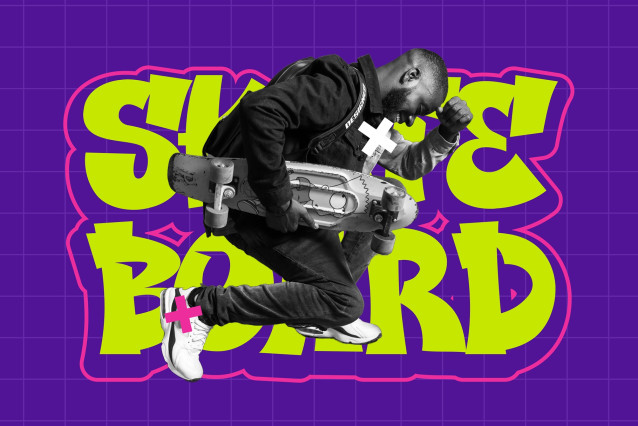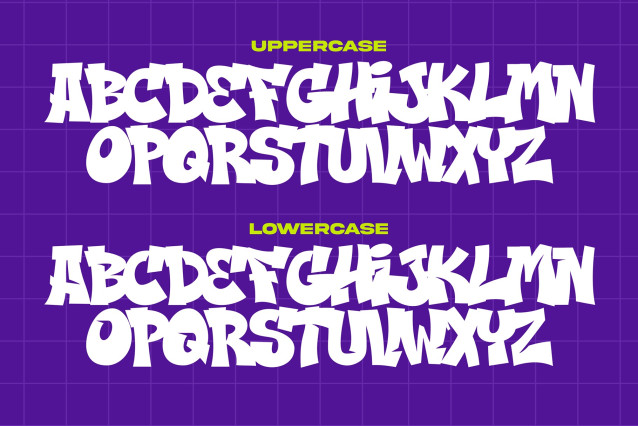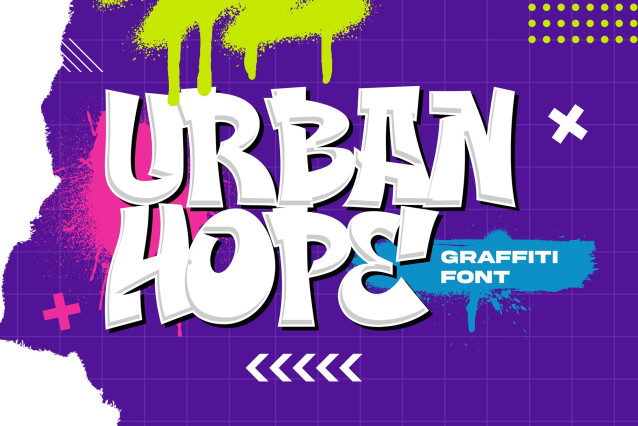
Urban Hope Font
Urban Hope Font is a dynamic urban graffiti font crafted to bring bold character and authentic street vibes to your work. With its raw strokes, expressive curves, and a mix of uppercase and lowercase letters, this typeface captures the essence of street culture—rebellious, loud, and undeniably cool.
Perfectly suited for album covers, graffiti-style posters, branding projects, and digital artwork, Urban Hope offers a versatile tool for designers who want to make a bold visual statement.